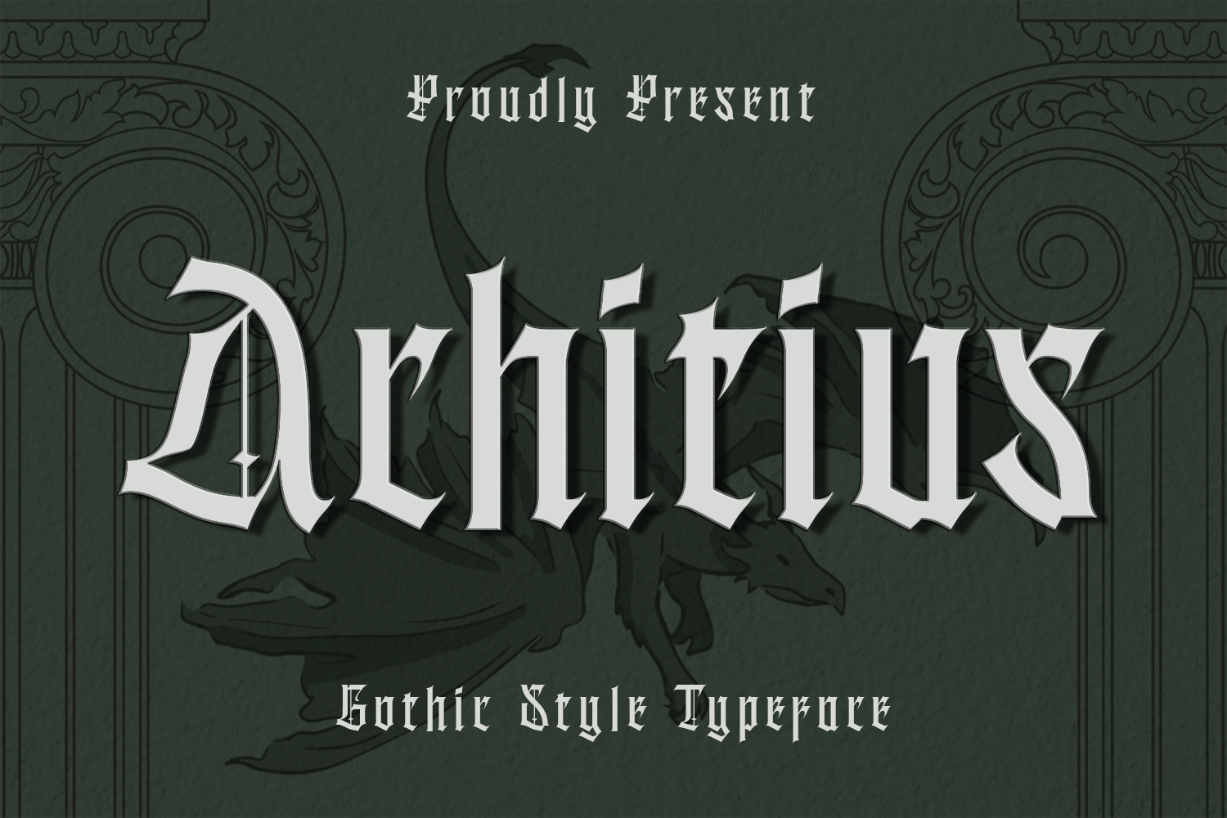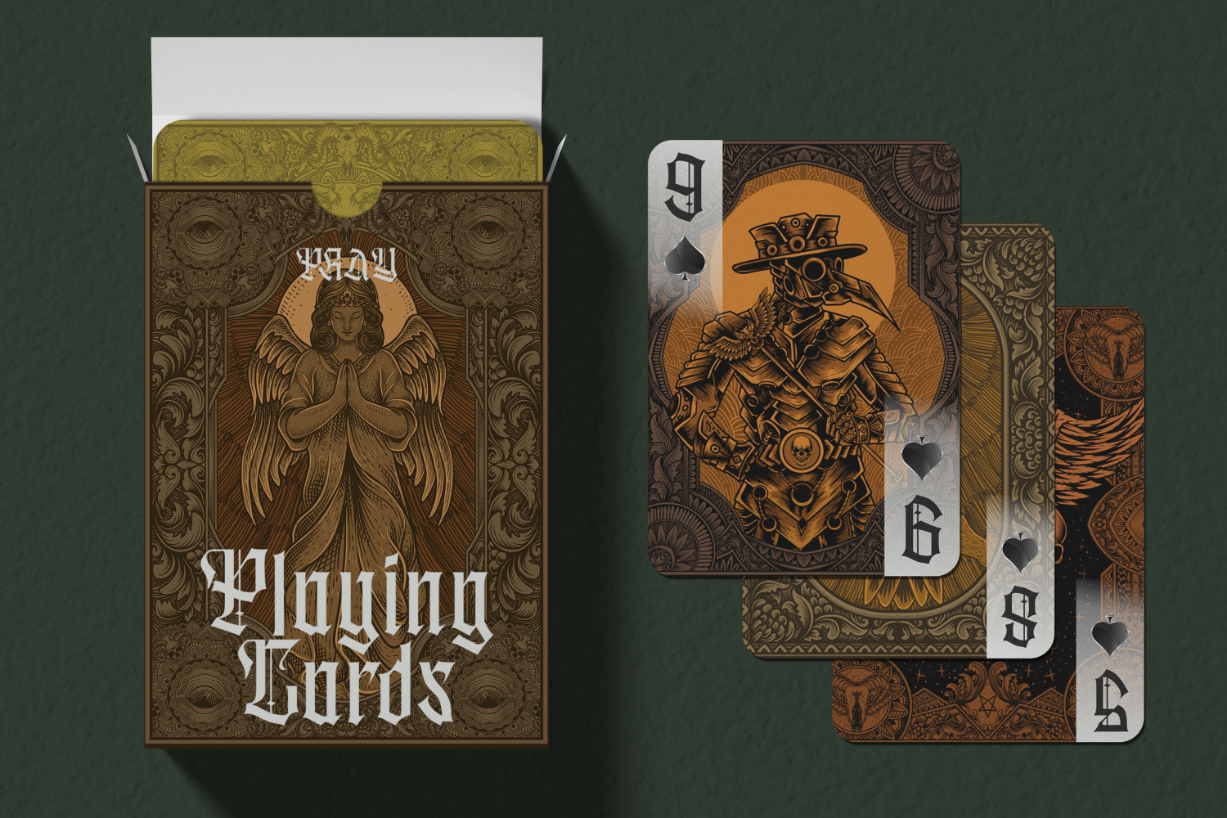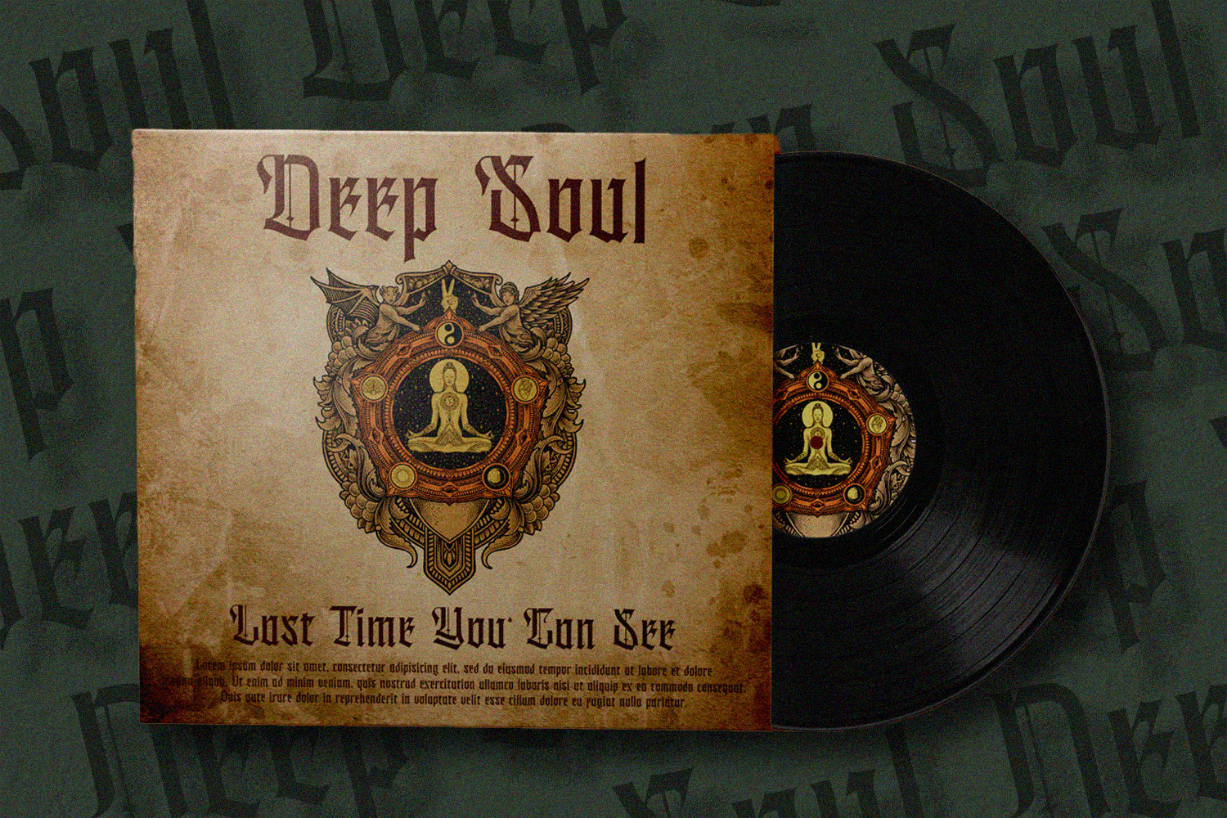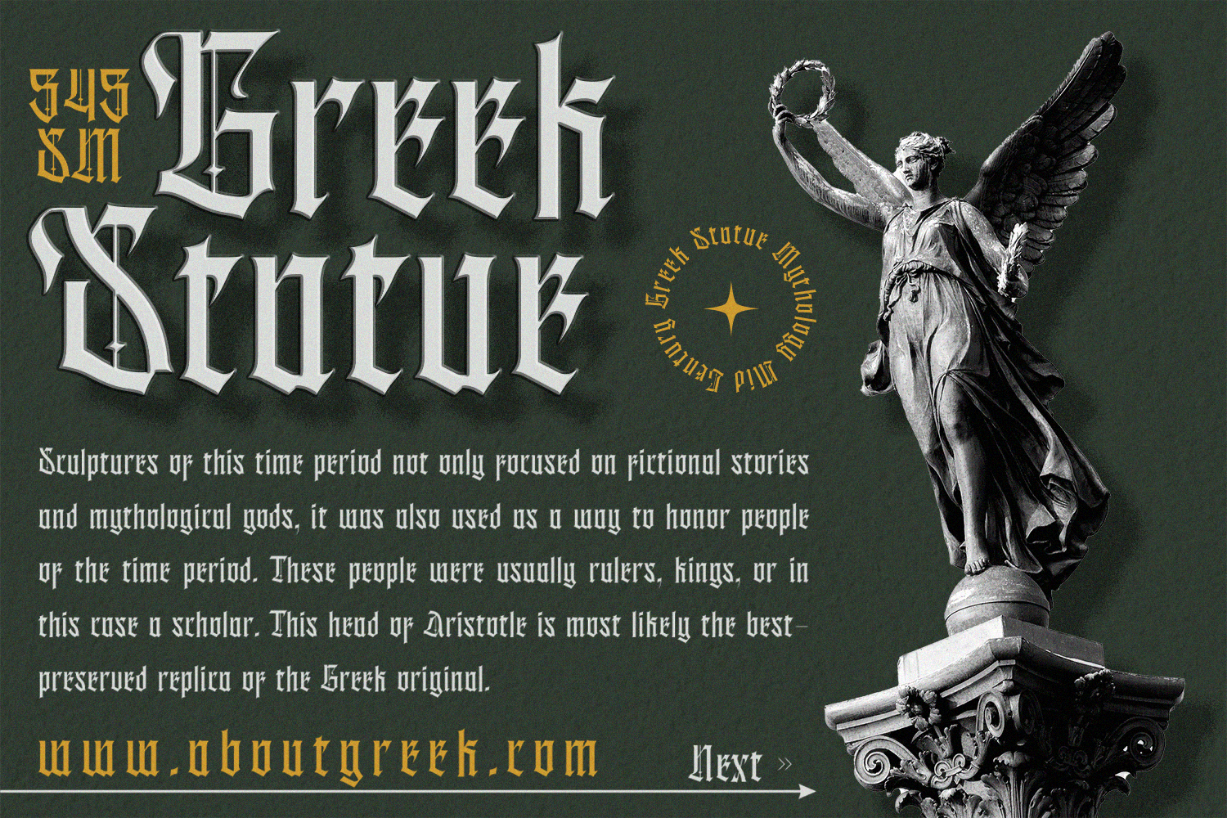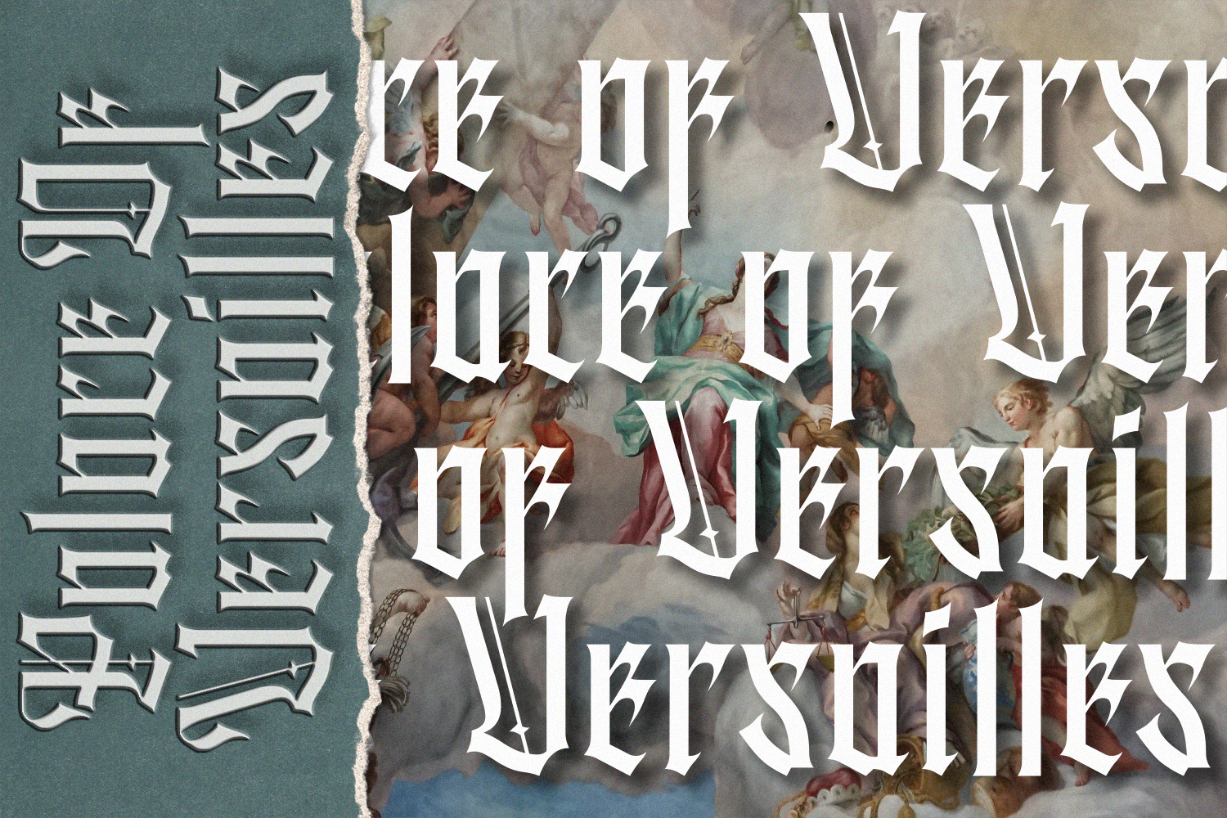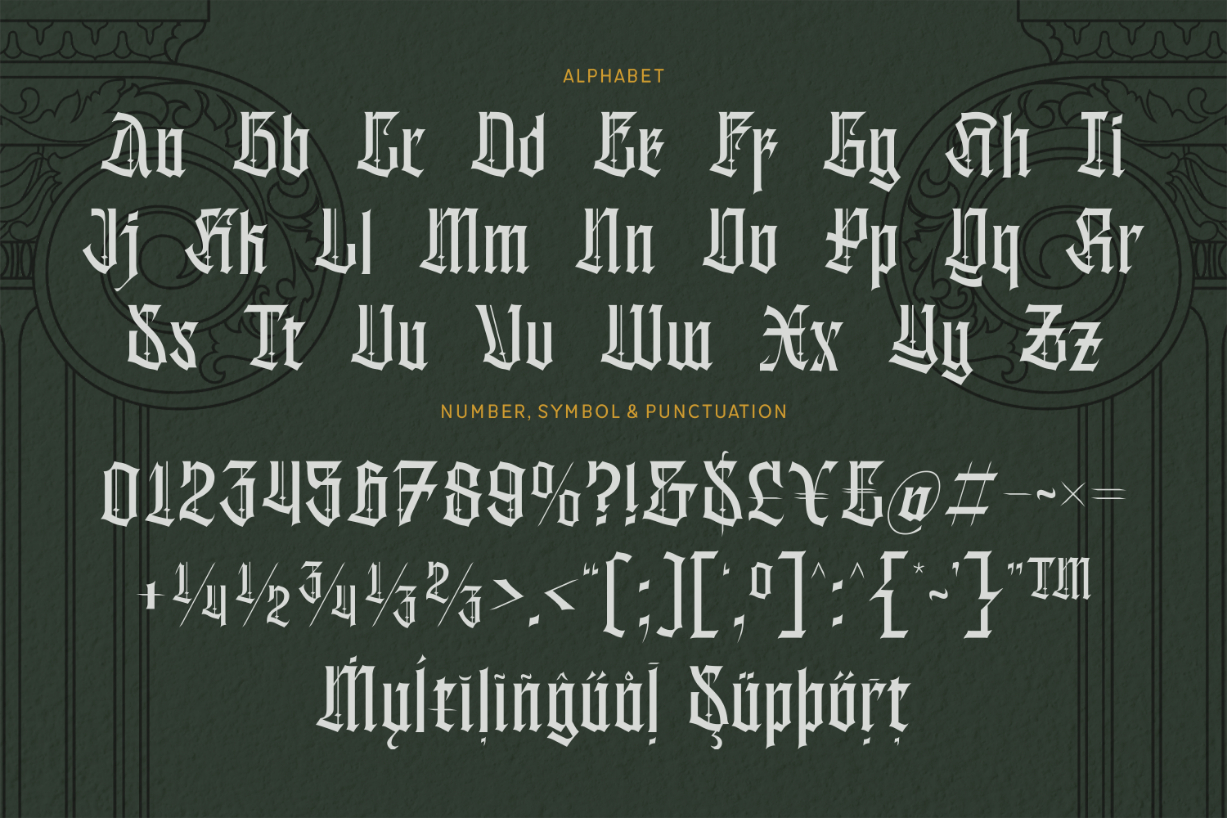
About Achitius Font
Achitius is a stylish gothic-style blackletter font. This elegant set of characters is perfect for adding a bold and unique look to your design projects. Add it to your fonts library, and use it to create outstanding typography!